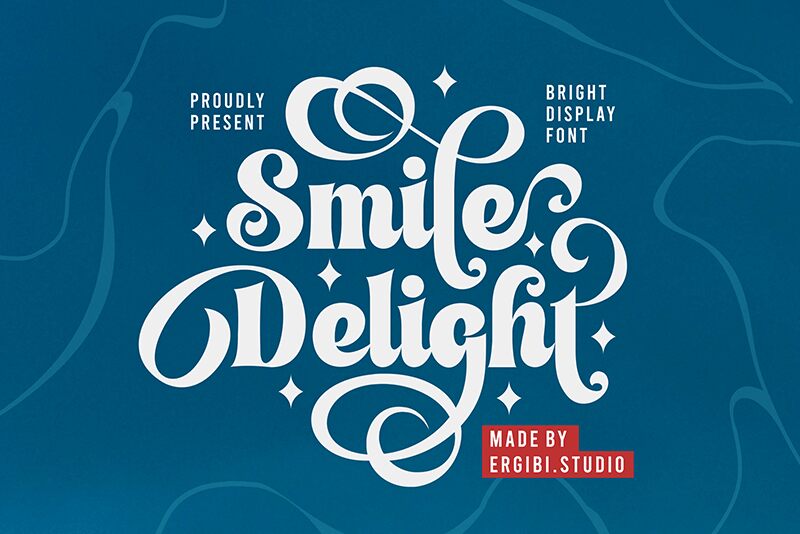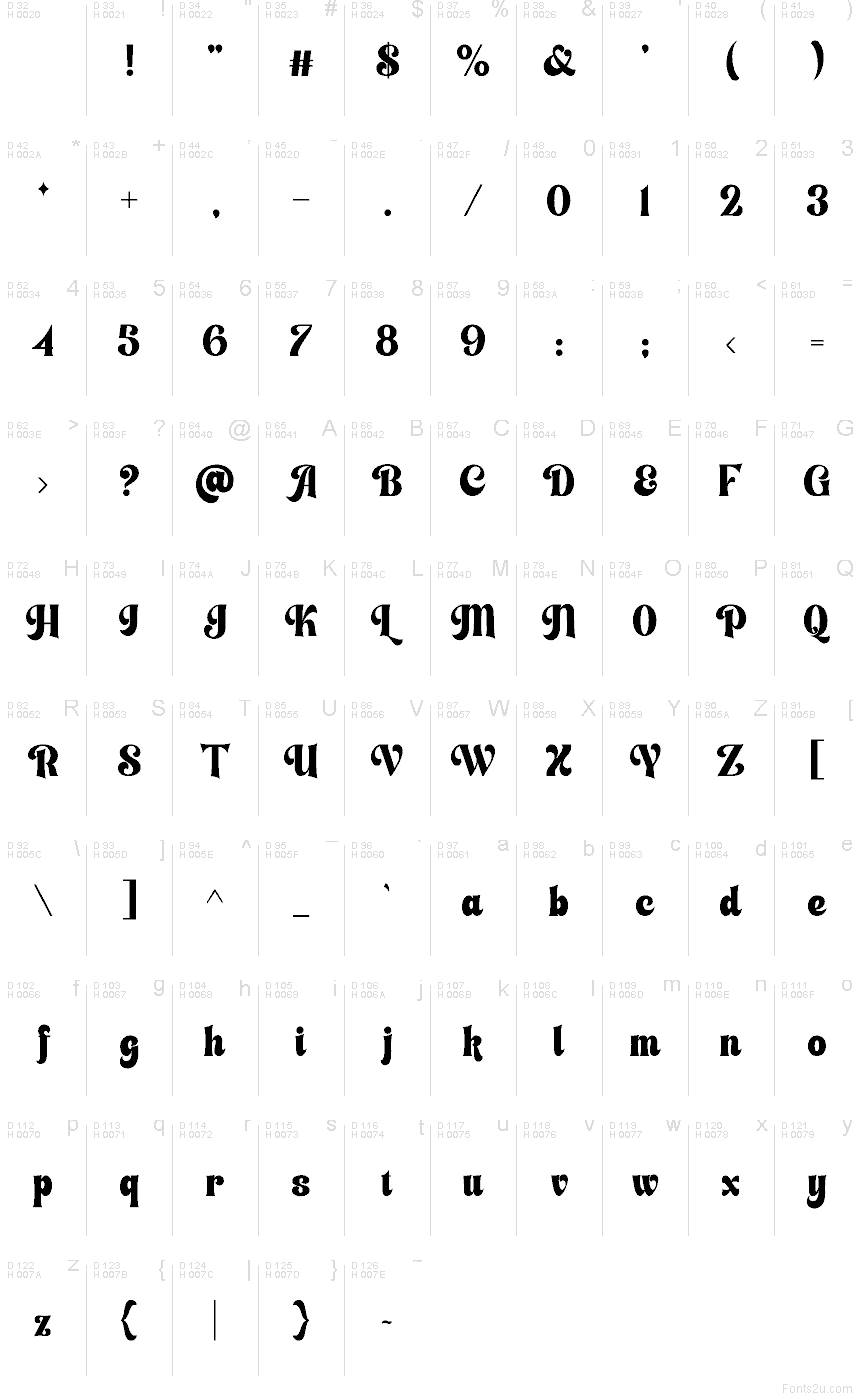
Smile Delight font by Riyadh Rahman of Ergibi Studio is a free retro display typeface that feels like it’s been poured in glossy ink. Thick, velvety curves, bubbly swashes, and gently pinched joins give every word a soft, candy-coated presence that still reads clearly at a glance. The letters sit close and cozy, creating a bold, unified wordmark that looks as if it was hand-lettered for a vintage poster.
Using Smile Delight, this free font shines on branding, café menus, product packaging, posters, social graphics, and bold logotypes that need warmth and nostalgia in one hit. Its rounded, almost creamy strokes radiate friendliness, making even short headlines feel inviting and upbeat. Pair this retro typeface with a simple geometric sans in smaller text and let Smile Delight handle the big, attention-grabbing moments.